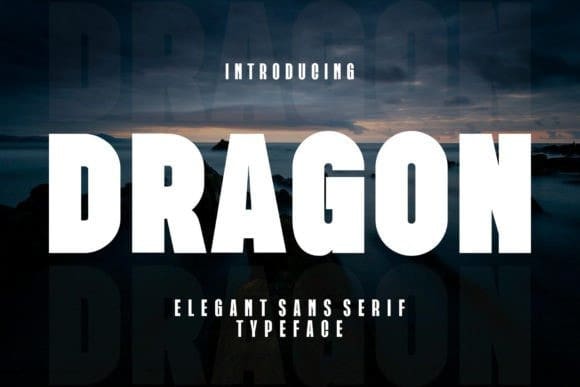
Dragon Sans Font
Dragon Sans Font – Modern Sans Serif Typeface inspired by the famous minimalist logo perfect for the purposes of designing templates, brochures, videos, advertising branding, logos, invitations, layout designs, elegant crafting, beauty design, and others.